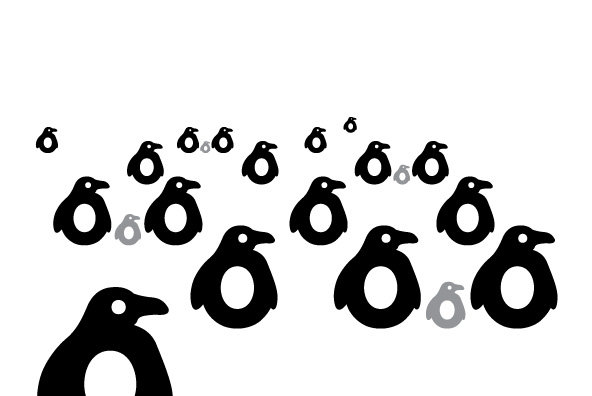
Zoological
Foundry: This Design Is Mine
Zoological is a playful typeface designed for use with zoo signage. The zoo characters form bold, characteristic headlines and many can be used as individual illustrations. You can also combine Zoological with VAG Rounded Bold to enhance large blocks of text without sacrificing legibility.